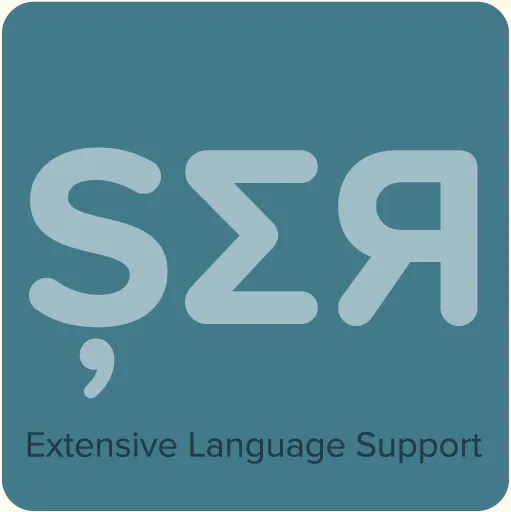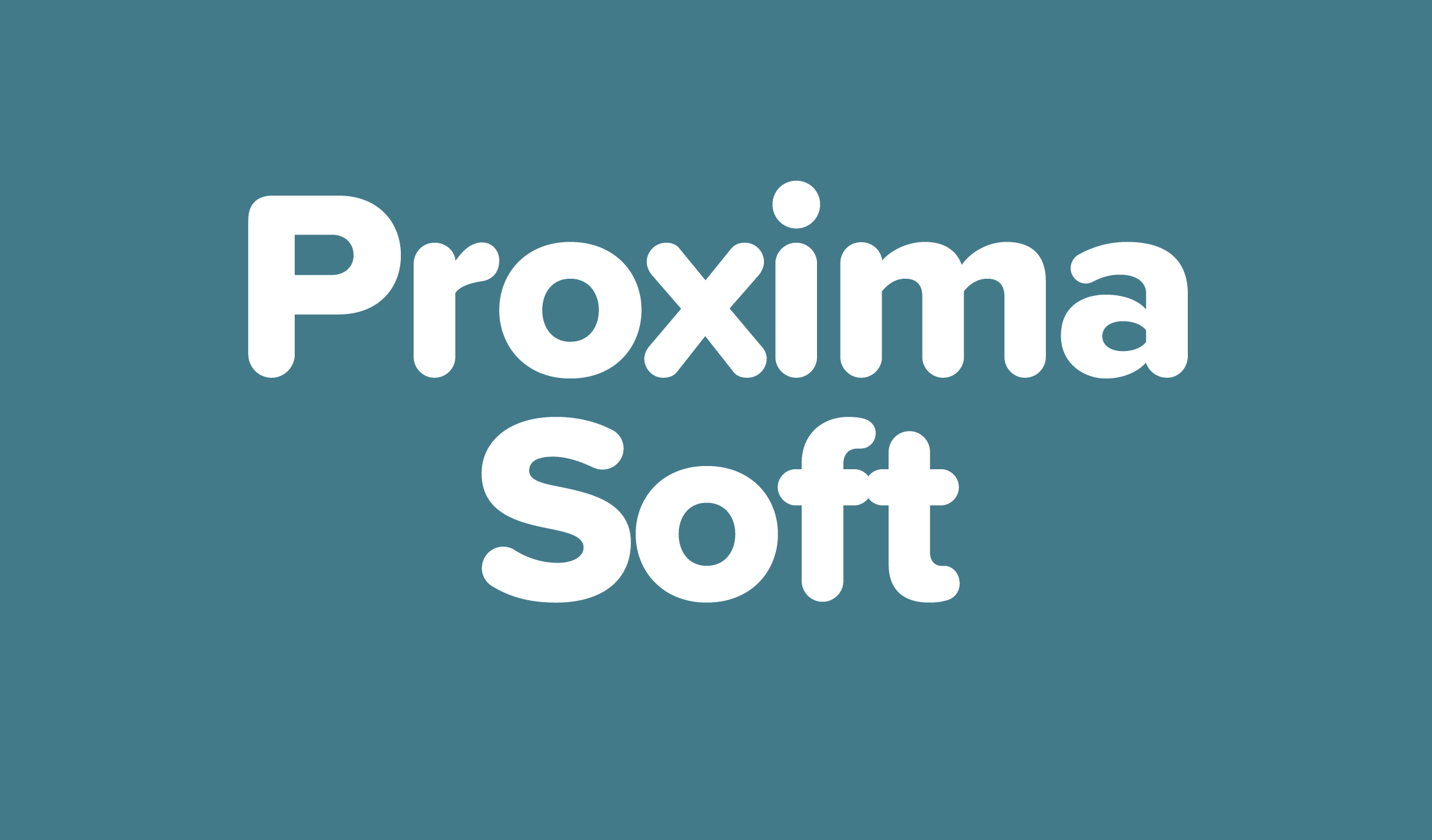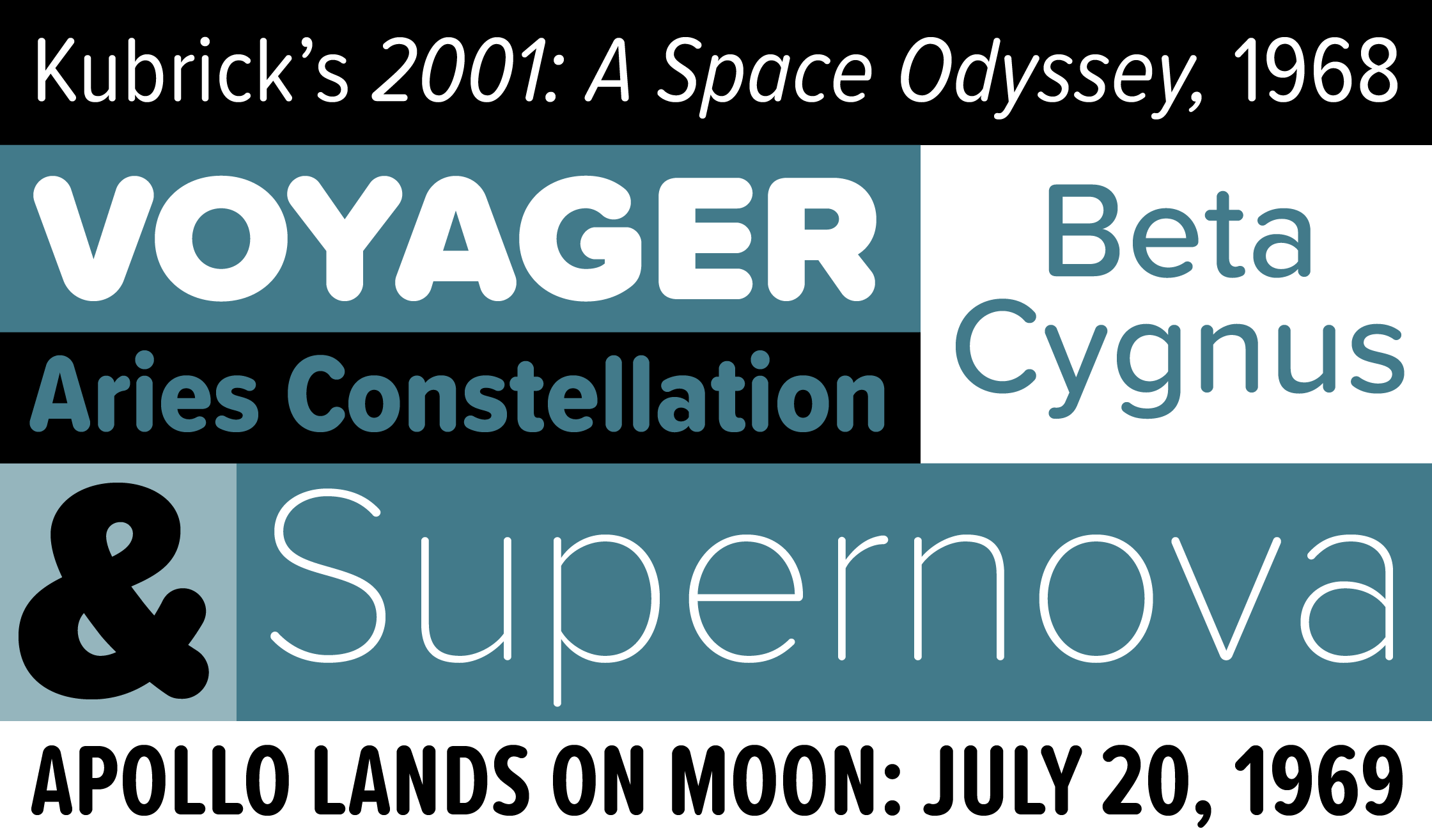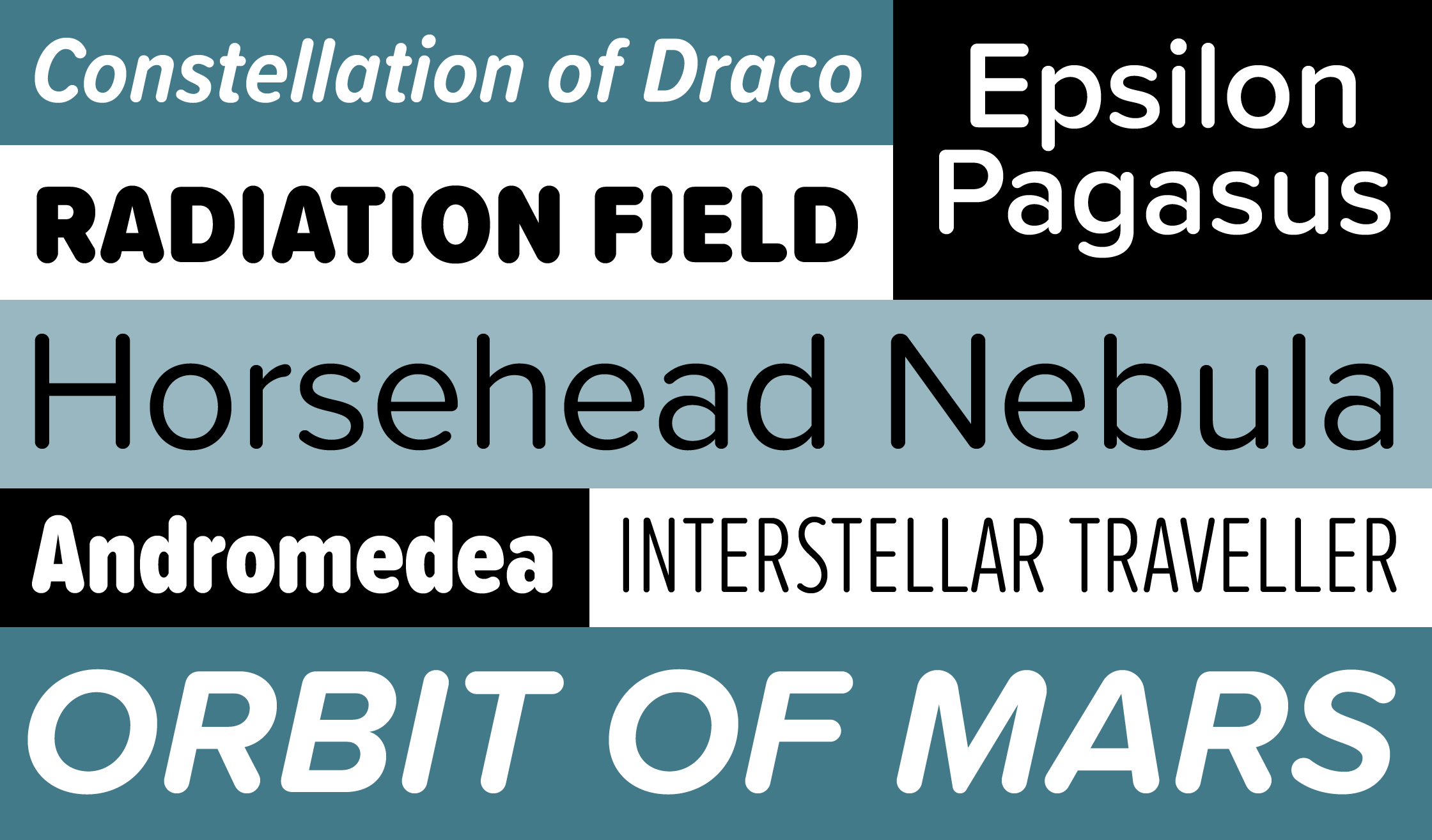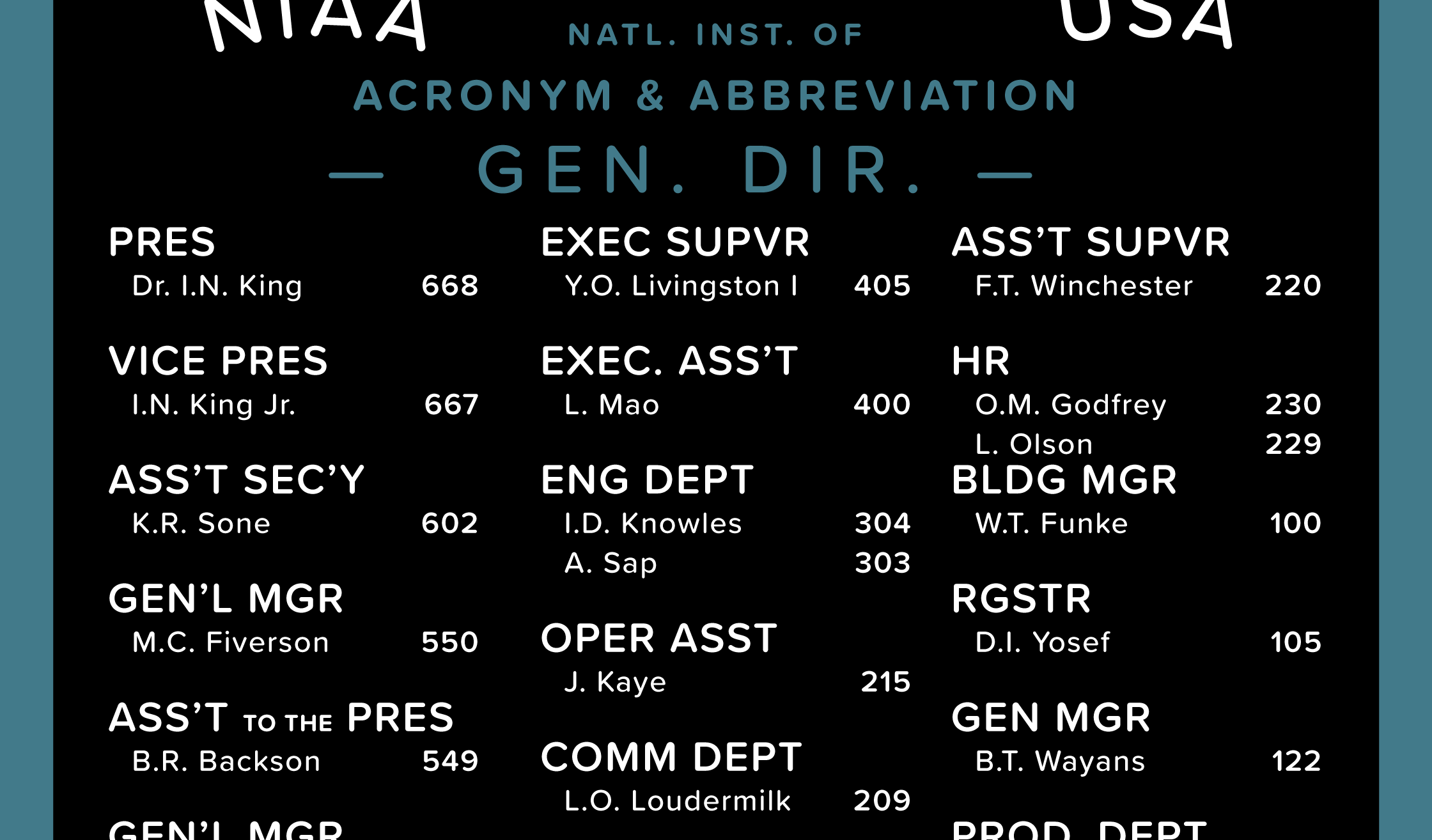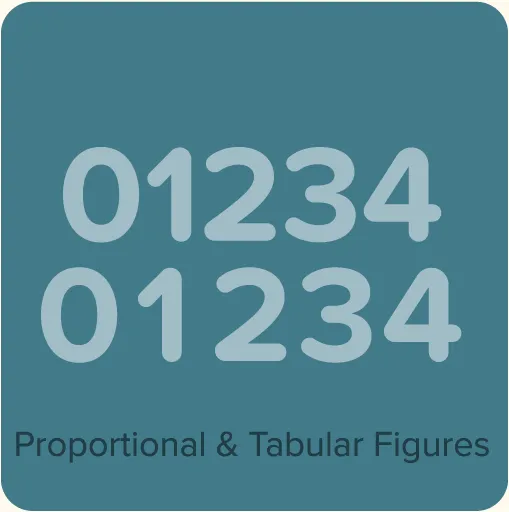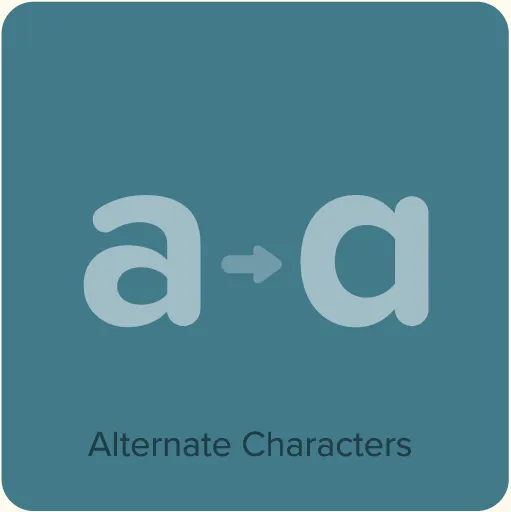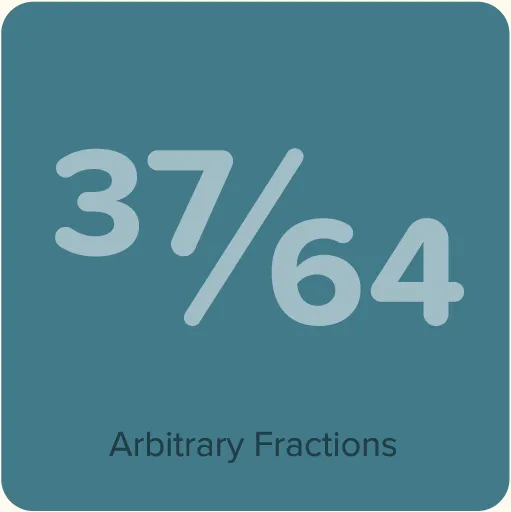
Proxima Soft (2017) is a rounded version of Proxima Nova. With the same forty-eight styles (eight weights in three widths, plus italics), Proxima Soft fits the bill when you want something a bit warmer and more playful than its older sibling. It features the same extensive language support, including Greek and Cyrillic. It also has several alternate characters, such as single-story lowercase a, allowing you to customize its appearance in a variety of ways.
Proxima Soft Features
- 8 weights: Thin, Light, Regular, Medium, Semibold, Bold, Extrabold, and Black.
- 3 widths: Normal, Condensed, and Extra Condensed.
- Matching italics for all weights and widths.
- Proportional and tabular figures.*
- Full “f” ligature set (ff, fi, fl, ffi, ffl, etc.).*
- Alternate characters (a, l, y, G).*
- Automatic arbitrary fractions.*
- Automatic ordinals.*
- Dingbats (16).
- Extended language support for most Latin-based Western and Central European languages and Vietnamese, as well as Greek and Cyrillic.
- Extended currency support.